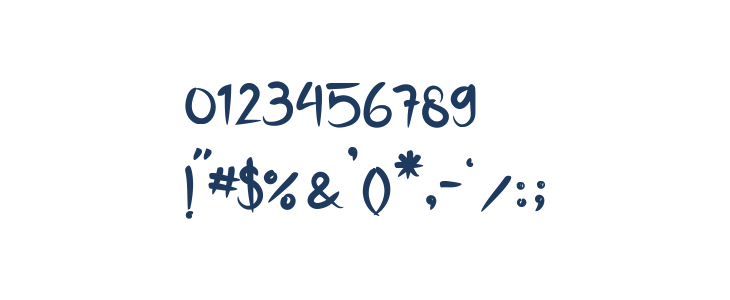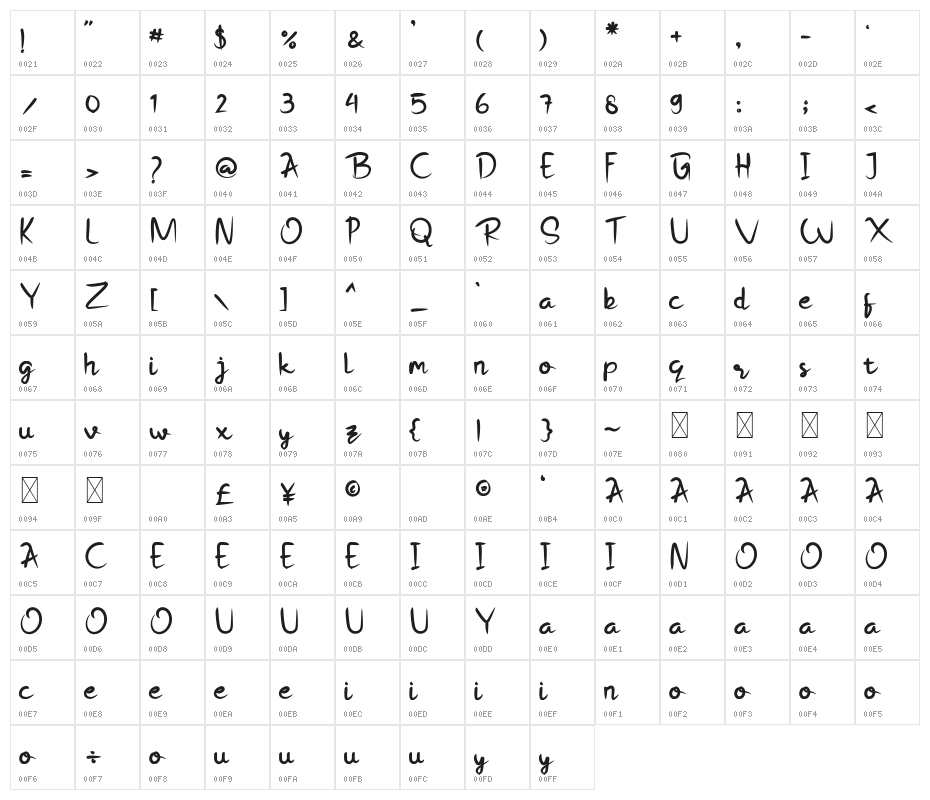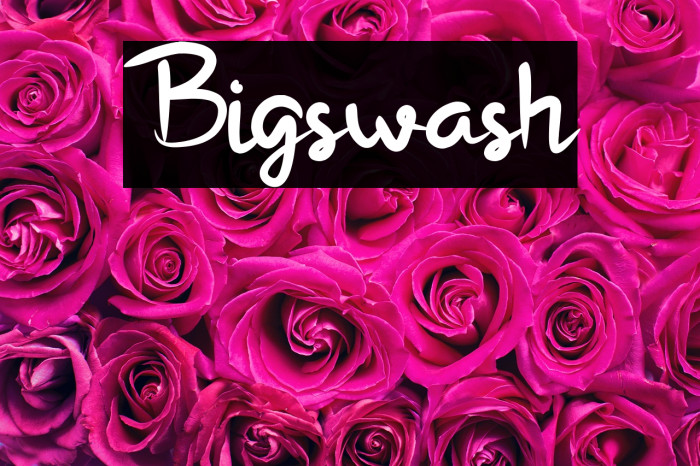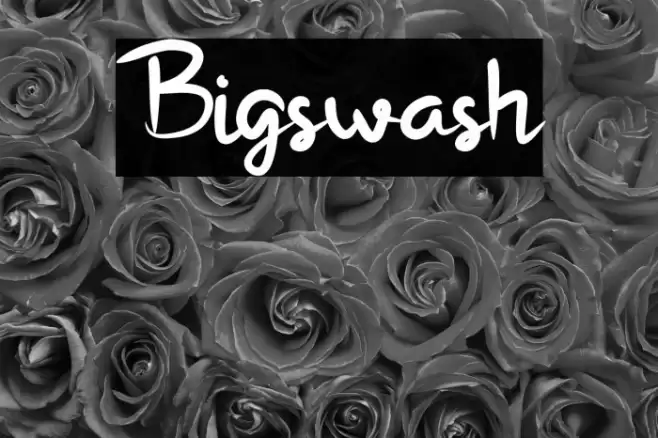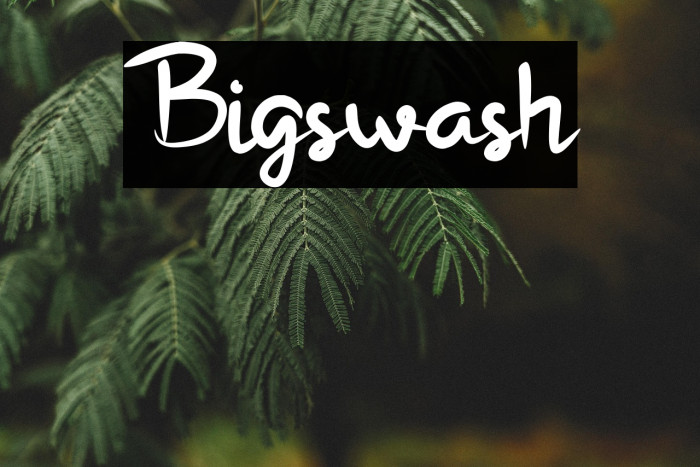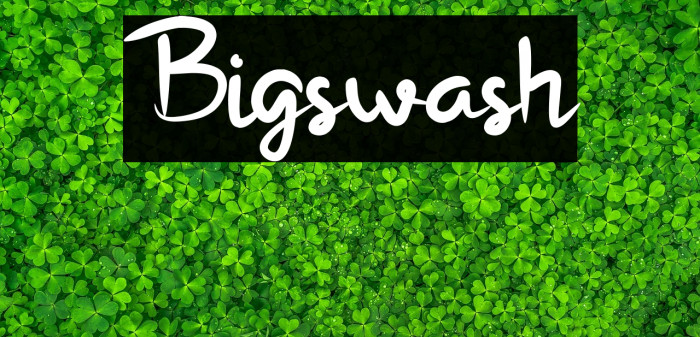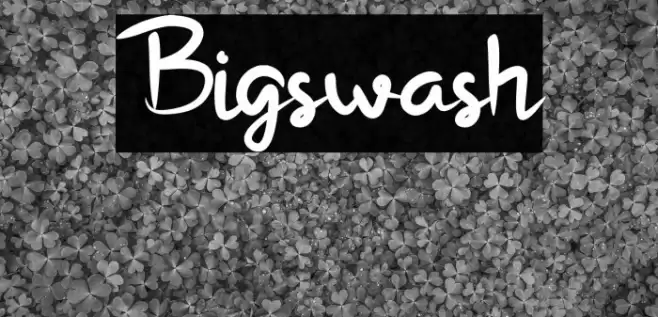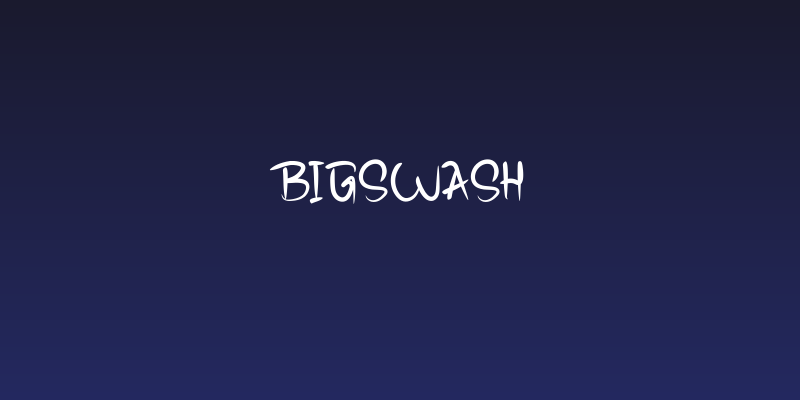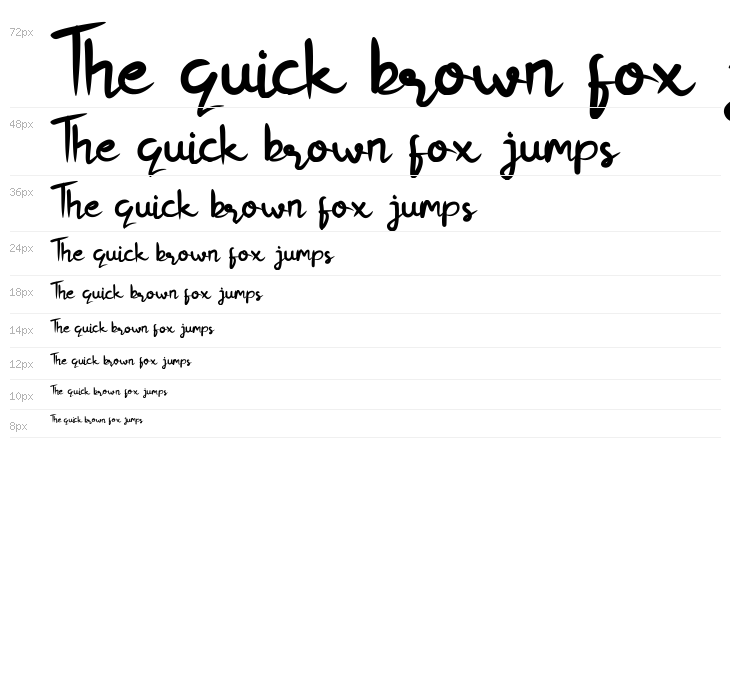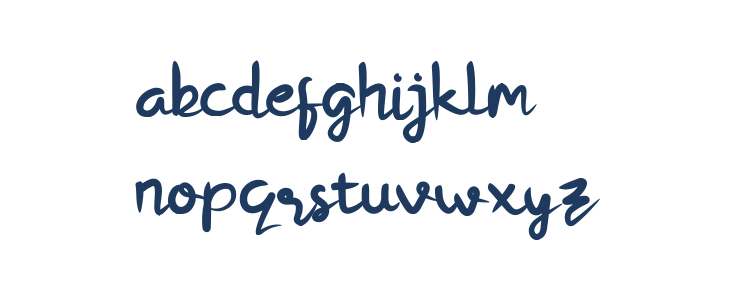
Bigswash Font
Bigswash Description
This font features a bold and expressive style with a handwritten appearance. The uppercase letters are characterized by their sweeping curves and dynamic strokes, giving a sense of movement and flair. The lowercase letters maintain a consistent flow, with some letters featuring unique loops and swashes that add to the font's playful nature. The numbers are bold and maintain the same energetic style, making them stand out. Special characters are creatively designed, complementing the overall aesthetic. This font is ideal for projects that require a personal touch or a sense of creativity and spontaneity.
| Proposed Projects | Ideal for greeting cards, invitations, branding projects, and creative posters. |